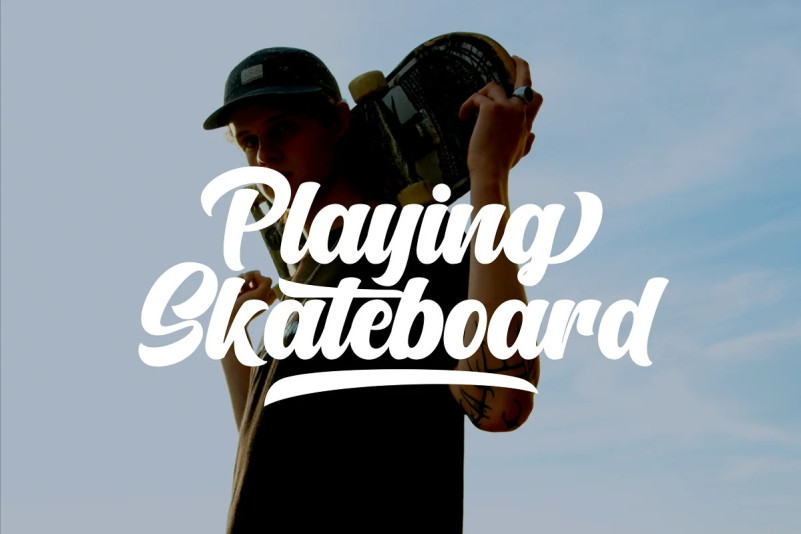
Mentalis Font
Mentalis Script Font is modern bold script font. Made carefully to get the best curves and unique form that never exist before.This font is comes in uppercase, lowercase, punctuations, symbols & numerals, stylistic set alternate, ligatures, and washes.
Mentalis is Suitable for any graphic designs such as branding materials, t-shirt, print, business cards, logo, poster, t-shirt, photography, quotes .etc. This font is suitable to use as a logotype / wordmark / label, etc with its unique and bold characters makes it stand out from the crowd.